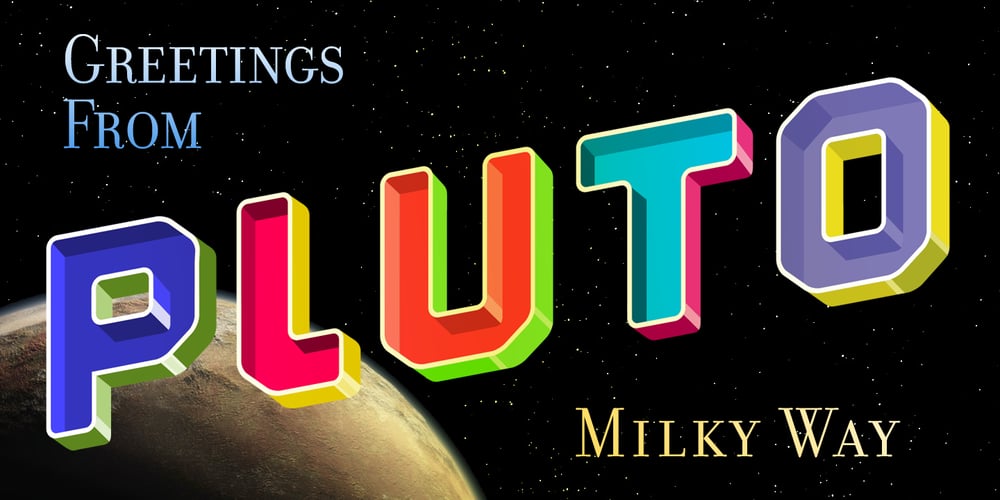
Pool Font Family was designed by published by Tipos Pereira. Pool contains 2 styles and family package options. This is a SVG Color Font, inspired by a lettering done some years ago, where the deepness of the letter remembered to me a Great Pool, so… this is it. This set is composed by the fonts Pool-Supercolor and Pool-Hot ice, both you can break the curves using Adobe illustrator and recolor the letters with your own taste.I did a lot of options that you can use as reference. In fact we have a lot of colors here. The Pool-Supercolor font has a lot of combinations of colors for the uppercase and a duotone combination for the lowercase. Pool-Hot Ice has two combinations of colors, an yellow and blues for lowercase and a pinky blue to lowercase. Symbols, accents and numbers has different combinations too. Take a look at the images to see the complete character set and all combinations of colors. Of course as I said, you can break it all in Illustrator or even play with photoshop color effects to get different results. Attention please: Pool typeface is an OpenType-SVG color font, at this moment this just works whit Adobe Photoshop CC 2017 + and Adobe Illustrator CC 2018. There’s some good information about how to use SVG Color Fonts here: https://helpx.adobe.com/typekit/using/ot-svg-color-fonts.html For curiosity, I did all the work using Adobe Illustrator and the plugin Fontself, including Spacing and Kerning. It’s a very funny tool. This is a new tecnology done with new tools, so if you decide to buy this font, feel free to get in touch if you need some information how to use and everything else. Cheers, Marcelo Magalhães from Tipos Pereira Type Foundry.